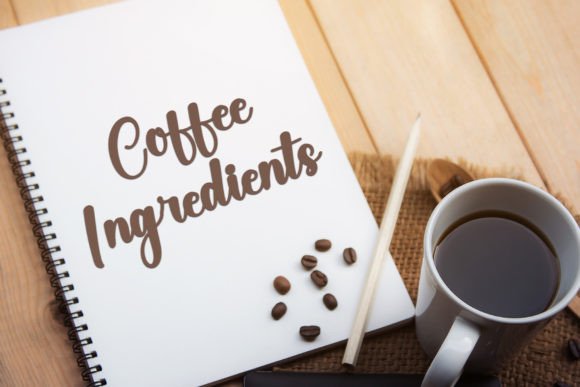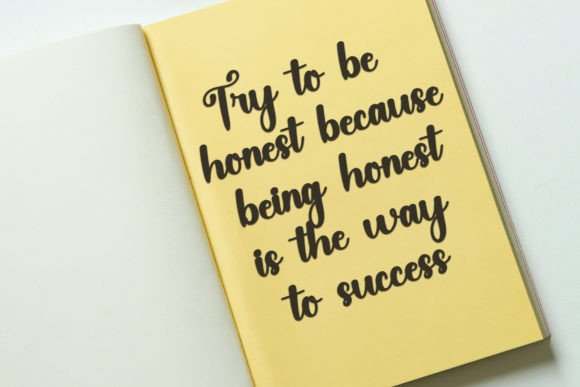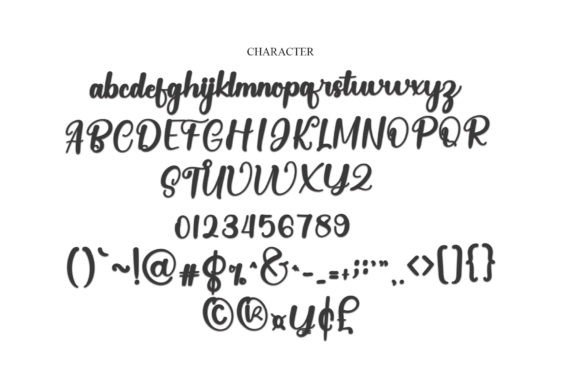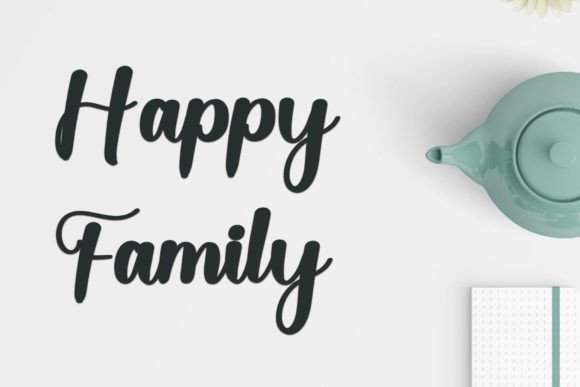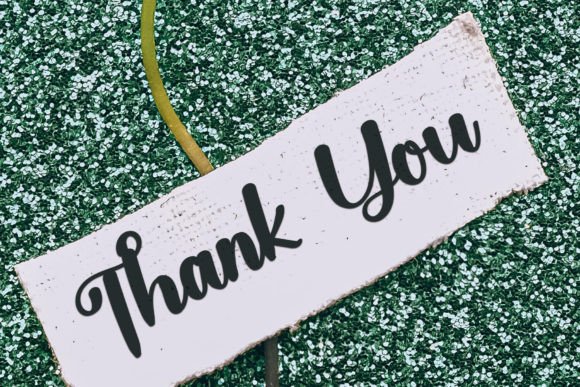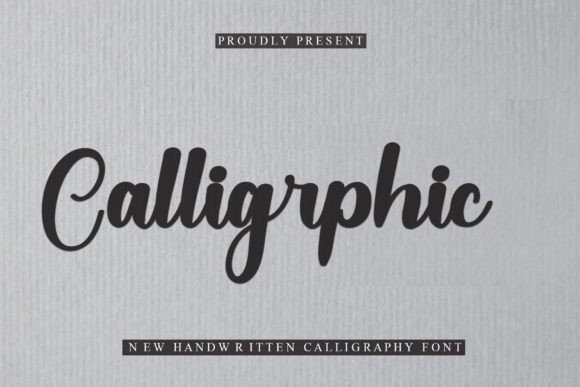
The Enchanting World of Calligraphic Fonts: A Designer’s Delight
I’ll never forget the time I was working on a project for a client’s wedding invitation. I had spent hours agonizing over the design, but something felt off. The text just didn’t have that special something that would make it truly unforgettable. That’s when I stumbled upon the Calligraphic font. It was like a breath of fresh air – elegant, whimsical, and full of character. In this article, I’ll share my love for this enchanting handwritten font and provide a comprehensive guide on how to make the most of it.
Here’s what I’m obsessed with about the Calligraphic font:
• ✨ Elegant and Whimsical: This font has the perfect balance of sophistication and playfulness, making it ideal for a wide range of projects.
• ✅ Versatile: From greeting cards to headlines, Calligraphic can be used in various contexts to add a touch of romance and personality.
• 💫 Unique Character: Each letter has its own distinct charm, ensuring that your text will stand out from the crowd.
Of course, no font is perfect, and here are a few quirks to keep in mind:
• 🤔 Limited Use in Body Text: While Calligraphic is stunning in headlines and titles, it may not be the best choice for longer blocks of text due to its ornate nature.
• ⚠️ Kerning Issues: As with many script fonts, you may need to adjust the kerning manually to achieve optimal results.
The Story Behind Calligraphic: A Designer Inspiration
Calligraphic was inspired by the art of traditional calligraphy, where skilled artists would painstakingly craft beautiful letters by hand. The font’s creator aimed to capture the essence of this ancient art form in a digital format, making it accessible to designers and crafters worldwide. While the actual designer remains a mystery, their passion for calligraphy and typography shines through in every detail of the font.
Font Name Calligrphic Font
Author FreshTypeINK
Is Calligraphic suitable for body text? While Calligraphic is stunning in headlines and titles, it’s not ideal for longer blocks of text due to its ornate nature.